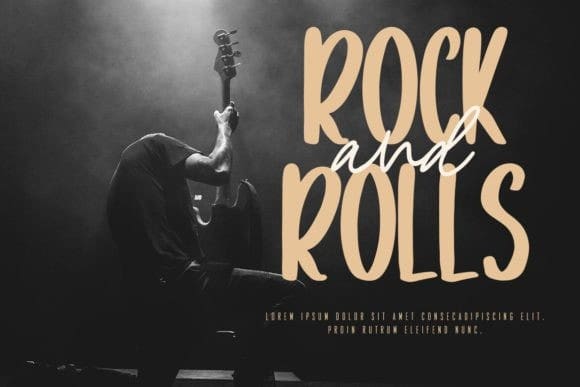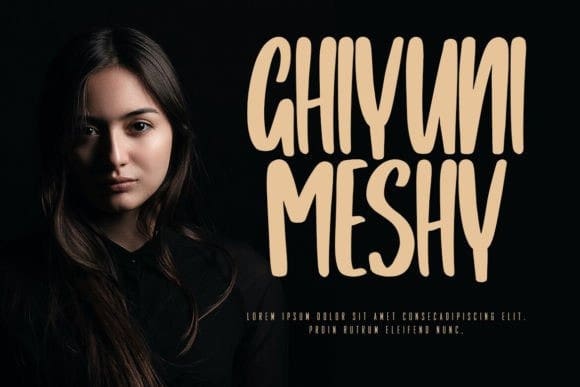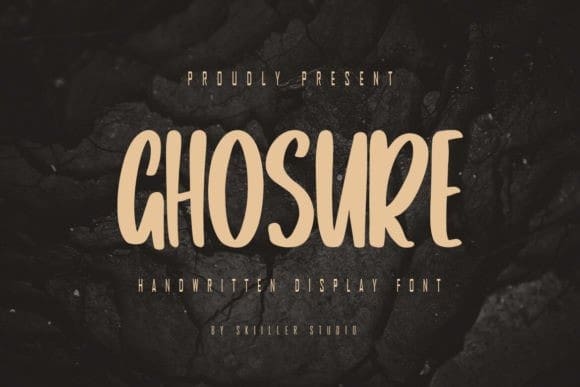
Ghosure Playful Font
Ghosure Playful Font – Handwritten Display Font. It looks beautiful on a variety of designs requiring a personalized style, such as wedding invitations, thank you cards, weddings, greeting cards, logos and so on. This font is PUA encoded which means you can access all of the glyphs and swashes with ease!